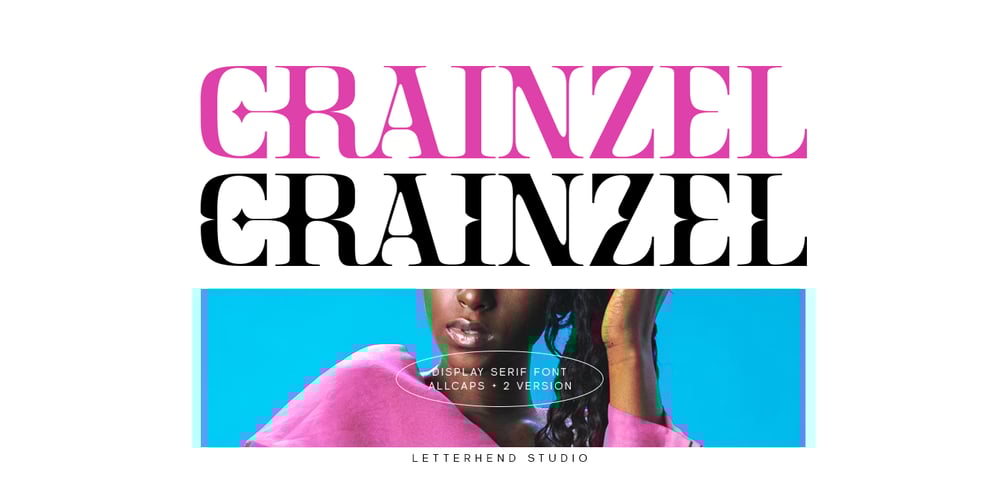
Crainzel Font Family was designed by Hendry Juanda and published by Letterhend. Crainzel contains 1 styles and family package options. Crainzel is a sophisticated high contrast display serif typeface. The ligature character makes this typeface unique and stands out rather than the regular serif font. Very suitable for logo, headline, tittle, and the other various formal forms such as invitations, labels, logos, magazines, books, greeting / wedding cards, packaging, fashion, make up, stationery, novels, labels or any type of advertising purpose.Features : numbers and punctuation multilingual ligatures alternates PUA encoded We highly recommend using a program that supports OpenType features and Glyphs panels like many of Adobe apps and Corel Draw, so you can see and access all Glyph variations. How to access opentype feature : letterhend.com/tutorials/using-opentype-feature-in-any-software/Email us to letterhend@gmail.com if you need something! Happy Designing!